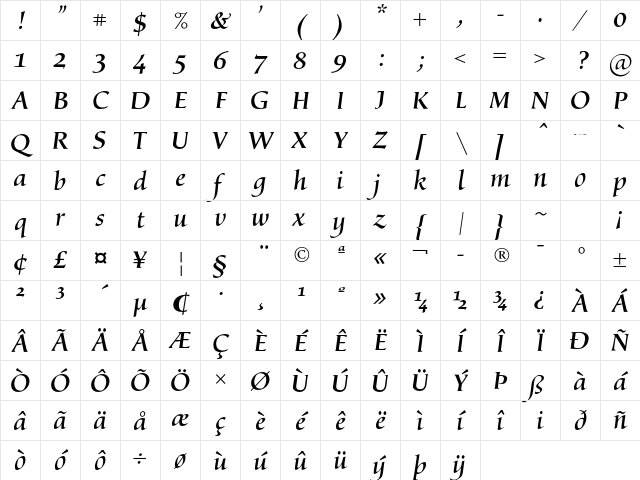
Byngve LT Std Bold Italic Free Font
Byngve LT Std Bold Italic
Designer: Bo Berndal
Design Context for Byngve LT Std
Byngve LT Std is a composed and adaptable typeface that performs quietly and consistently across a wide range of design contexts. The slanted form adds forward momentum and visual energy. Its bold stroke weight gives it real presence on the page.
Pro Tip: Use Byngve LT Std for emphasis, pull quotes, and subheadings where its slanted energy can add rhythm to the layout.